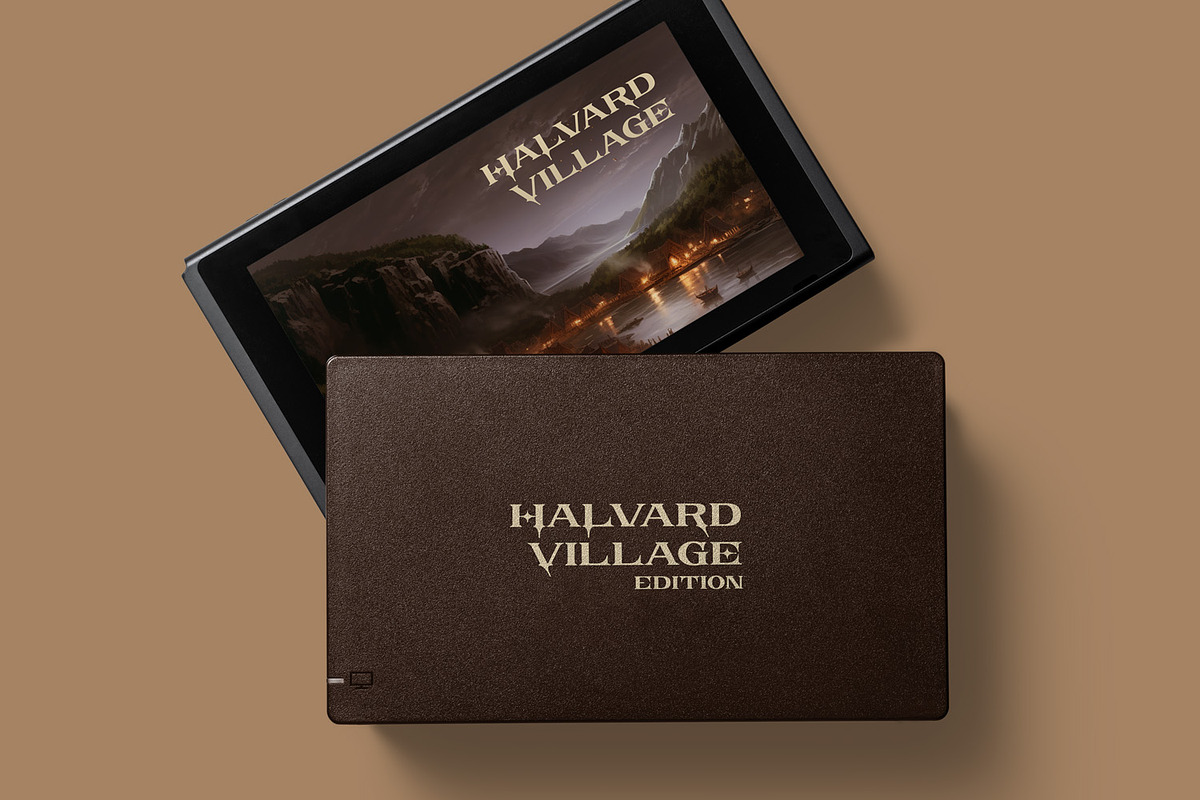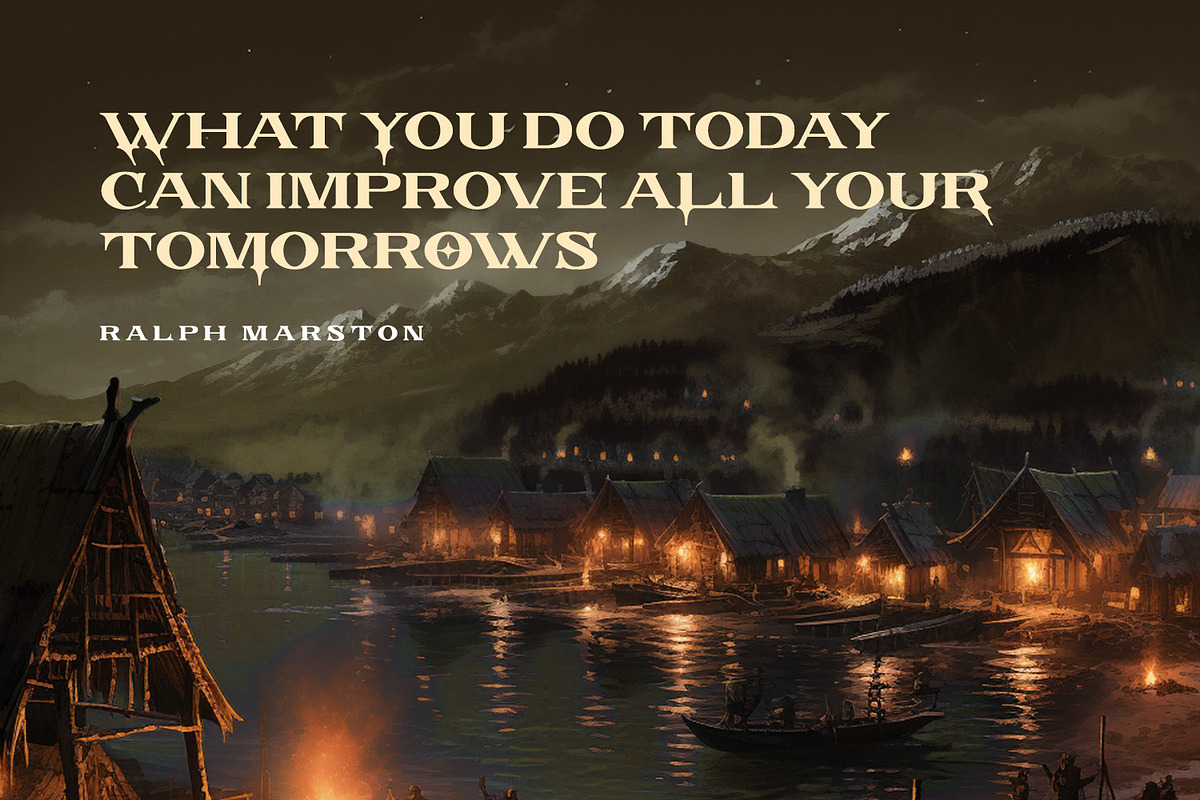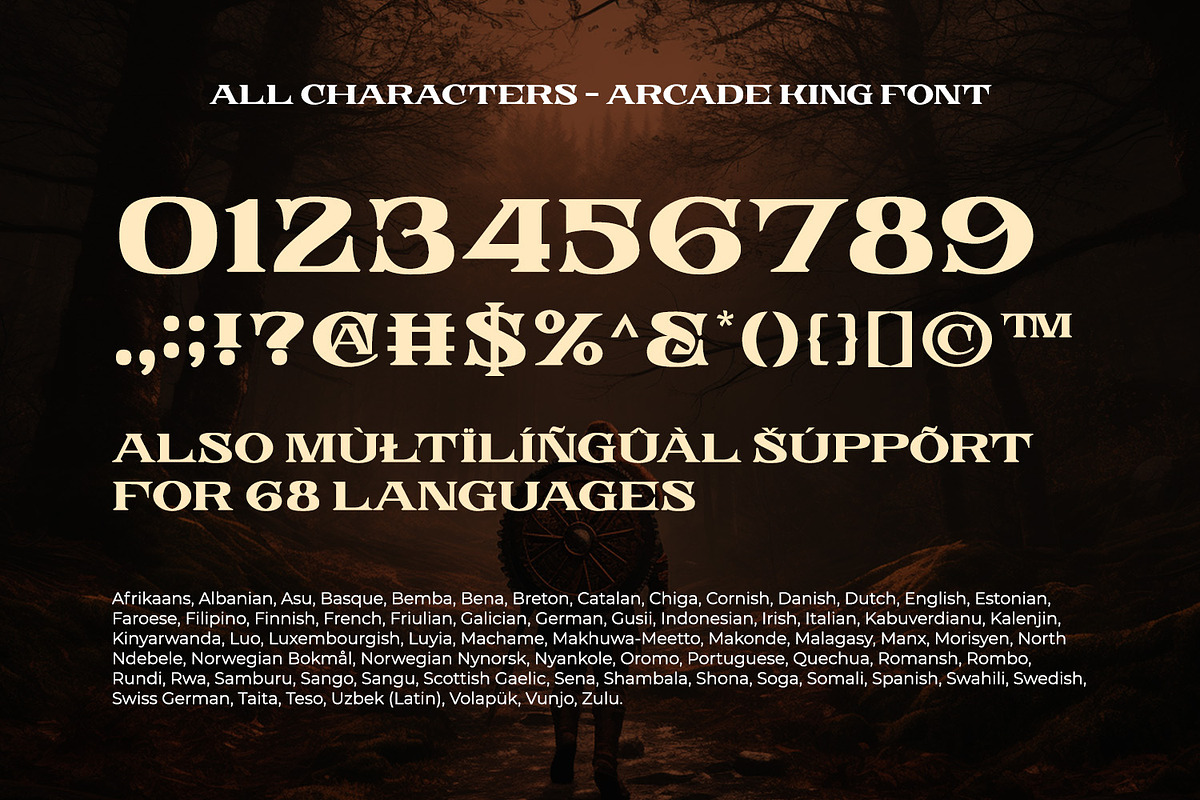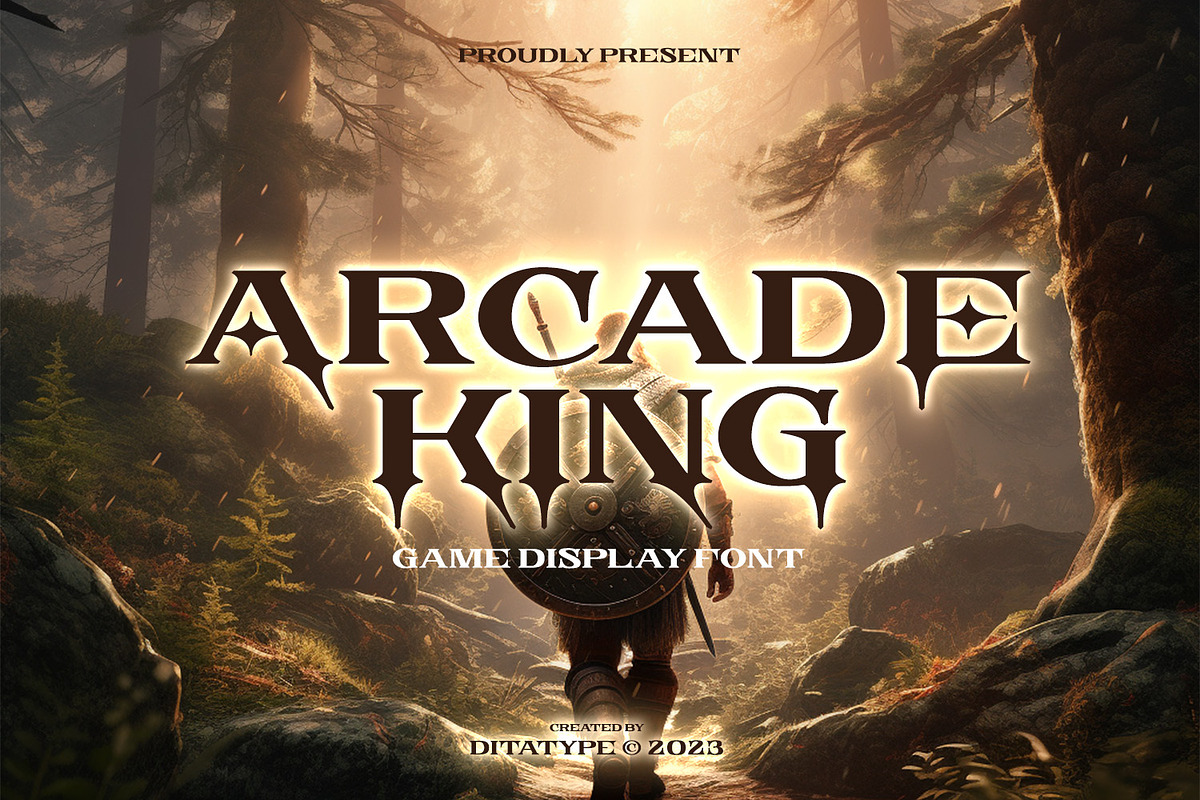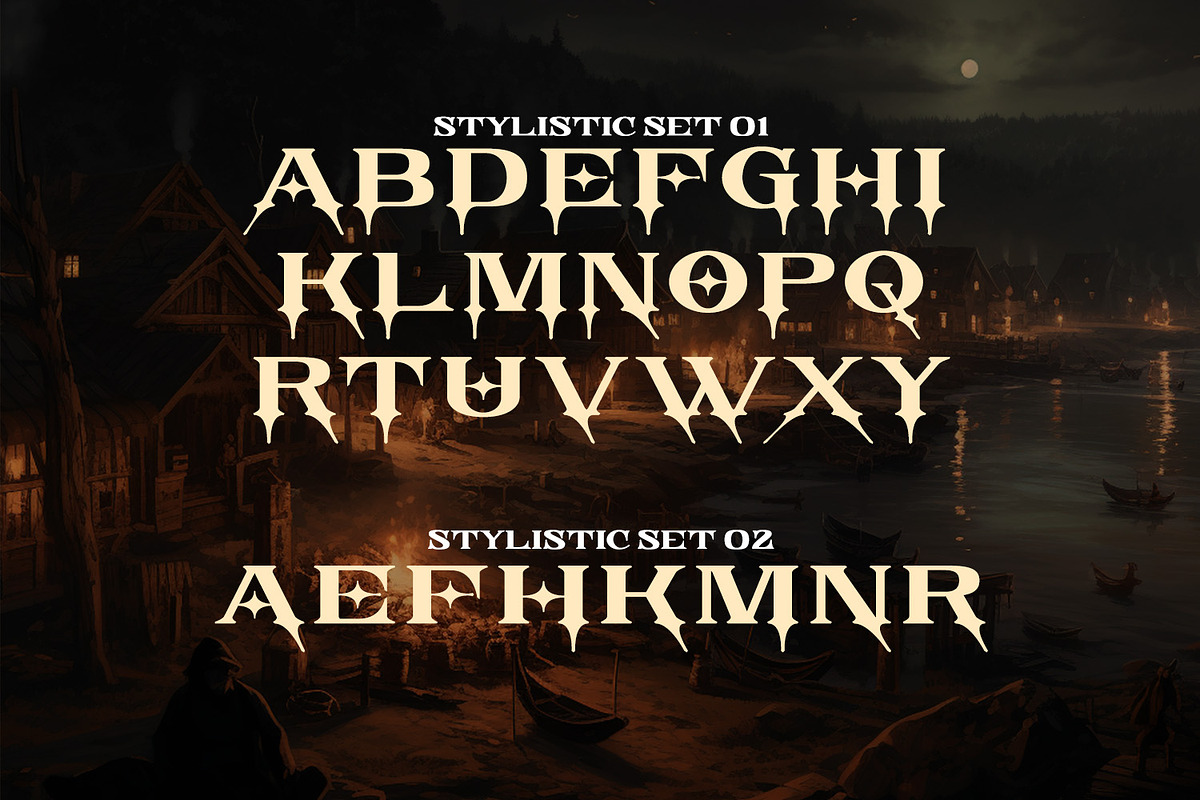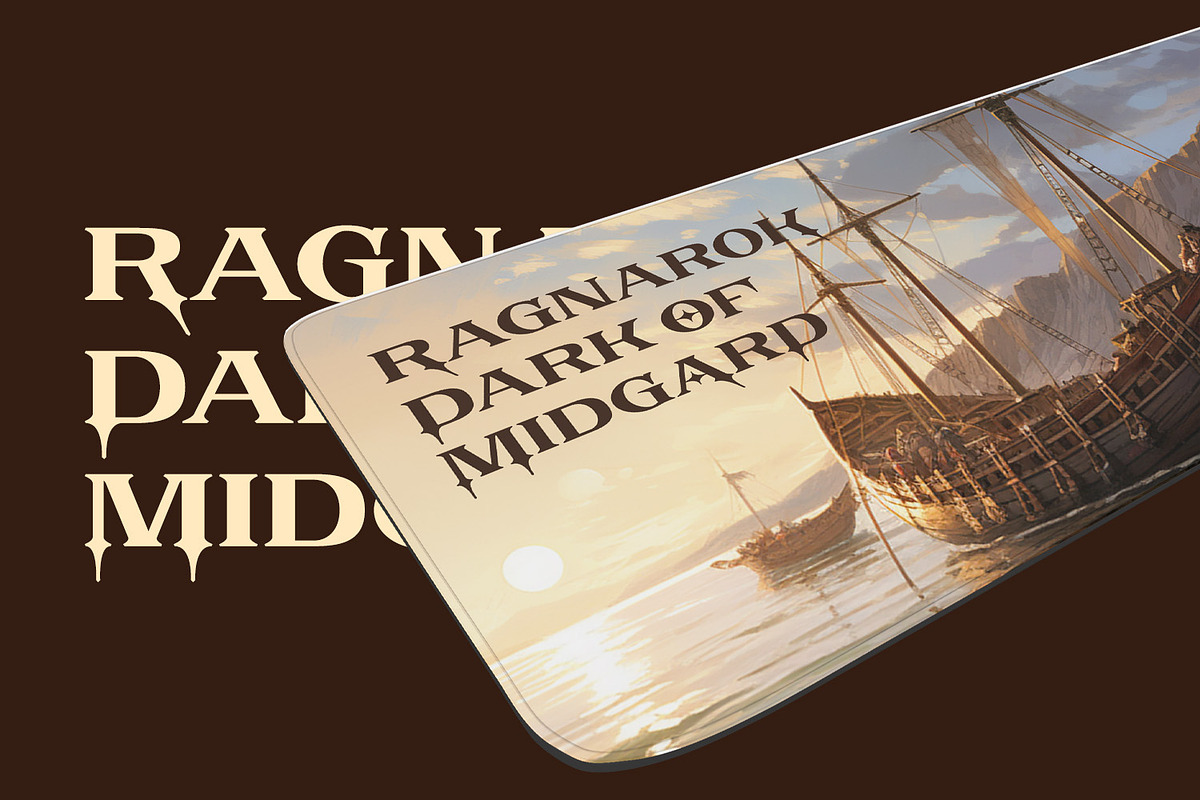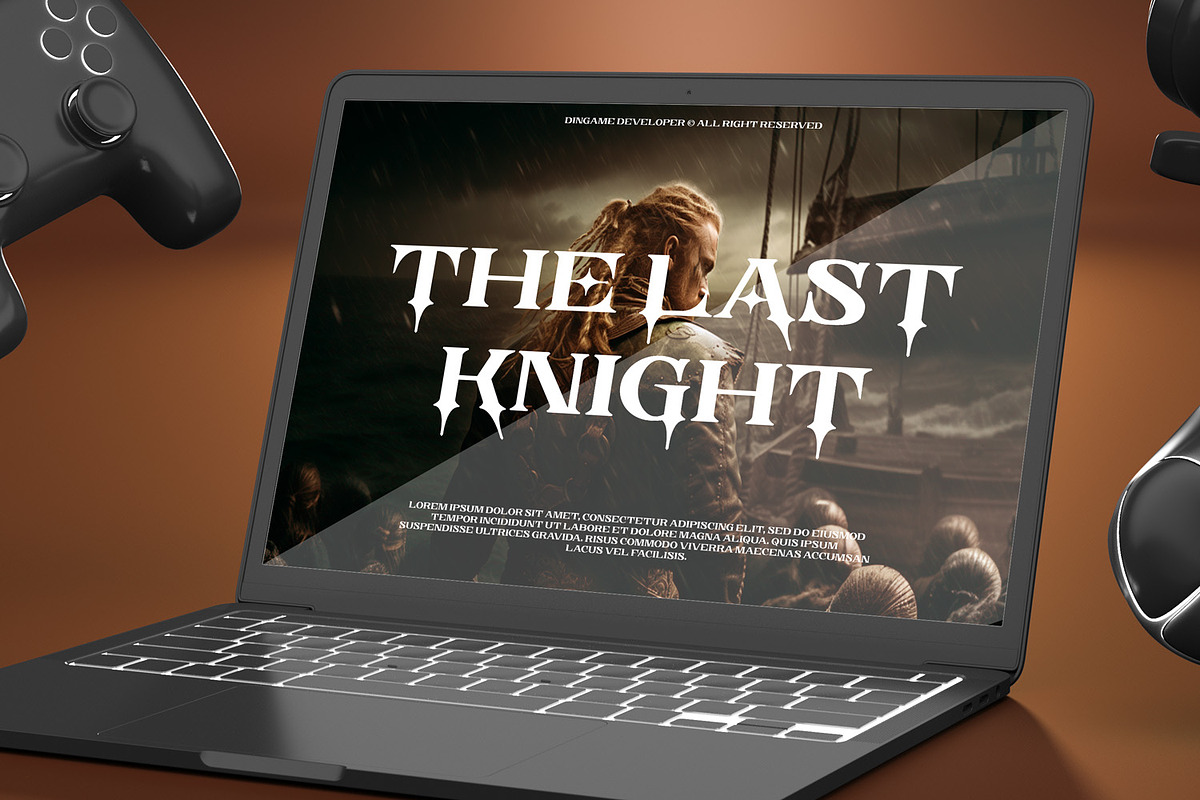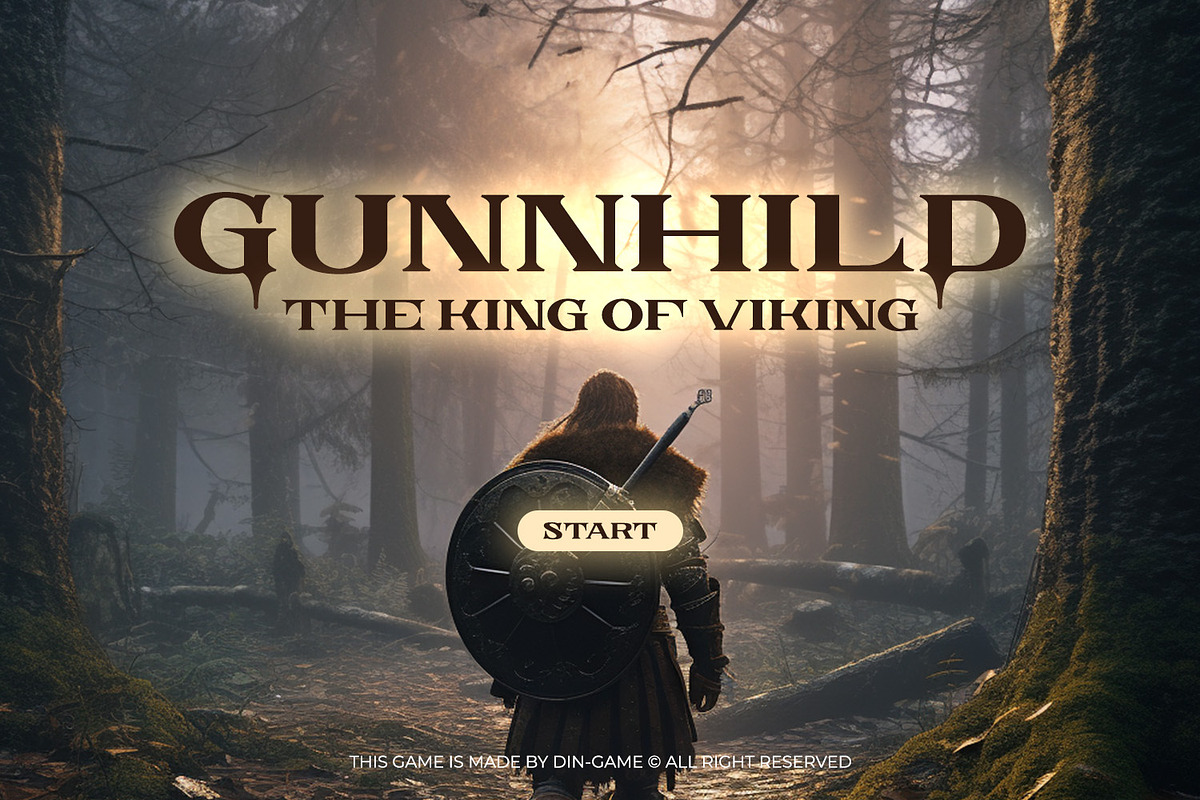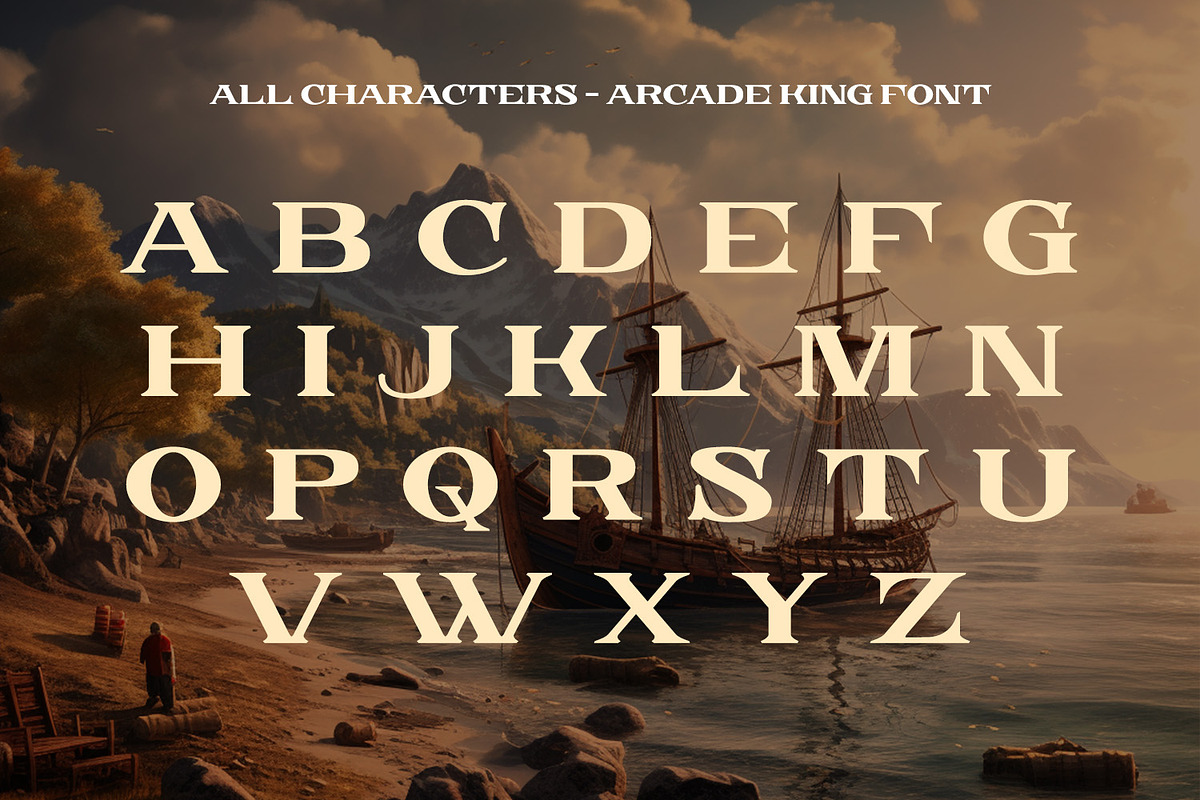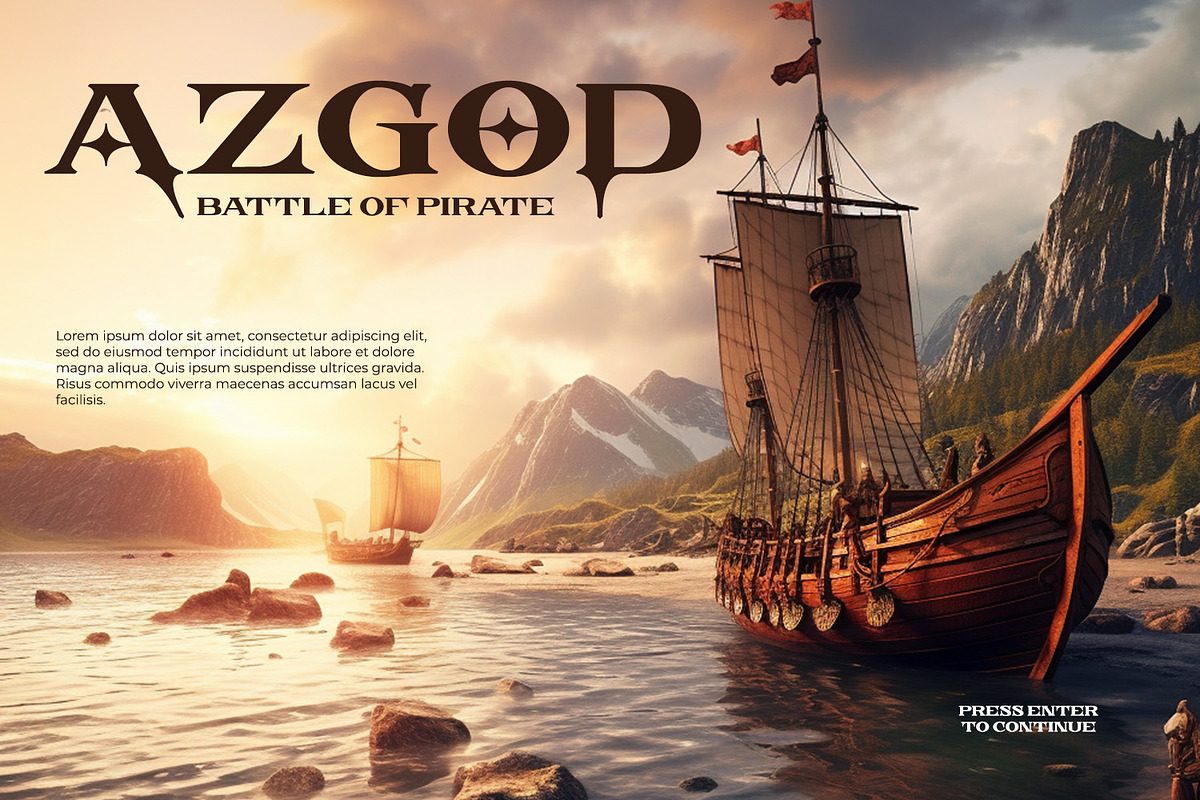
Arcade King
Arcade King is an exciting display font inspired by classic arcade games. Designed in uppercase, this typeface captures the nostalgic essence of retro gaming with its playful style. With consistent letter proportions and high contrast, this font ensures easy readability while immersing you in a world of gaming fun. The consistent letter proportions of Arcade King create a sense of harmony and balance throughout the font. Each uppercase letter is carefully crafted to maintain visual cohesion, ensuring a smooth and enjoyable reading experience. This design choice guarantees that every character complements the others, resulting in a visually appealing and cohesive typographic composition. The stark difference between thick and thin strokes enhances the visibility of each letter, making them easily distinguishable even at smaller sizes. The high contrast design adds a touch of boldness and excitement to the font, capturing the essence of the arcade gaming experience. Enjoy the available features here.
- Stylistic Sets
Arcade King fits in headlines, logos, posters, product packaging, branding materials, print media, editorial layouts, website headers, and any projects that aim to evoke a sense of fun and adventure. Find out more ways to use this font by taking a look at the font preview.